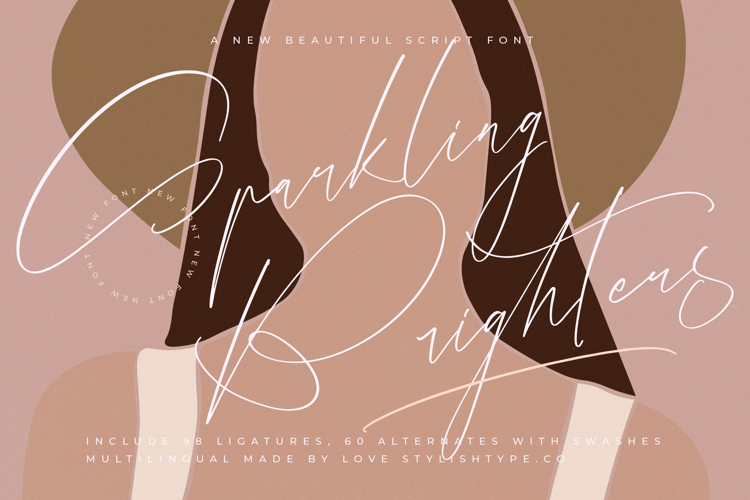
Sparkling Brighters - Beautiful Script Font
Sparkling Brighters is a beautiful script font designed with graceful elegance and contemporary handwritten charm. Its delicate strokes, stylish ligatures, and fluid alternates make it perfect for projects that require both refinement and artistry. Featuring 98 ligatures and 60 alternates with swashes, this typeface provides endless creative options for designers seeking to craft sophisticated and unique lettering.
This font excels in branding. Ideal for logos, luxury goods, boutique shops, fashion brands, and lifestyle products, Sparkling Brighters communicates elegance and authenticity. Its handwritten detail ensures that branding projects look stylish, memorable, and premium, making it especially suitable for high-end markets.
In editorial and publishing, Sparkling Brighters adds refinement and sophistication. Magazines, book covers, invitations, and event programs benefit from its delicate flow and stylish rhythm. It creates editorial layouts that combine legibility with artistic expression, turning text into a visual highlight.
For web typography, this font integrates seamlessly across blogs, websites, portfolios, and social media content. Its modern calligraphic style ensures that digital media projects feel elegant, creative, and authentic, helping brands and creators connect with their audience in a polished way.